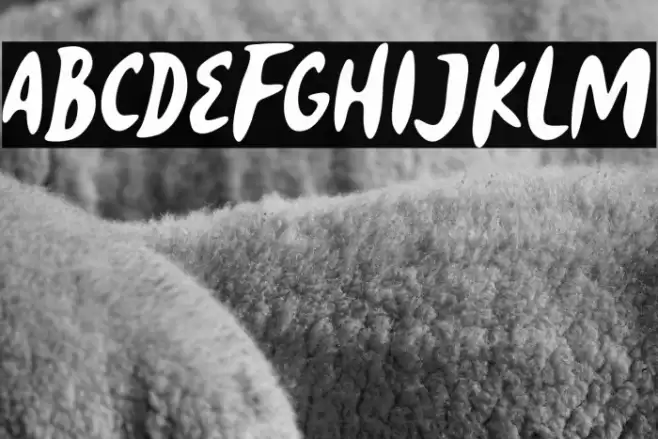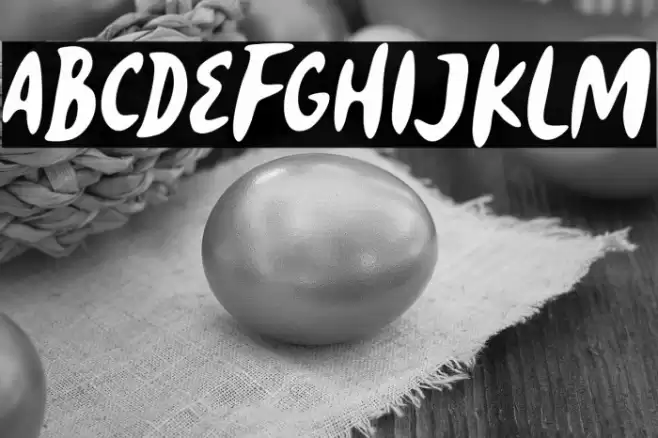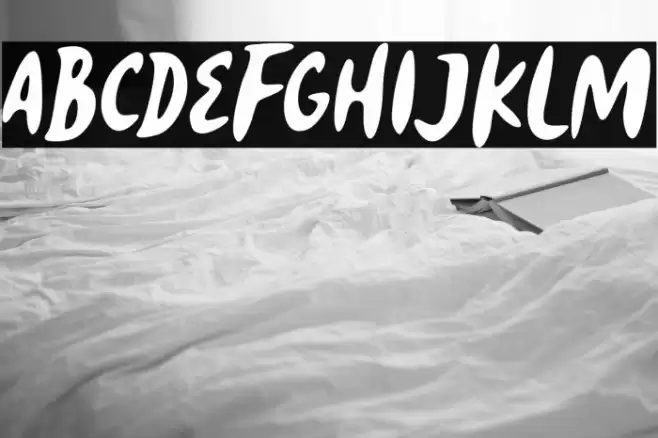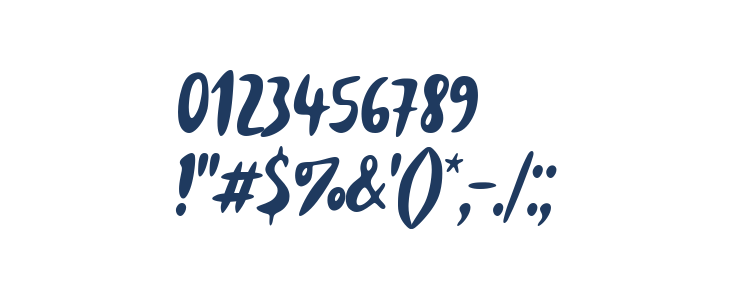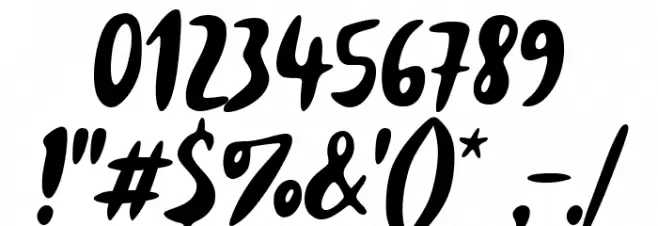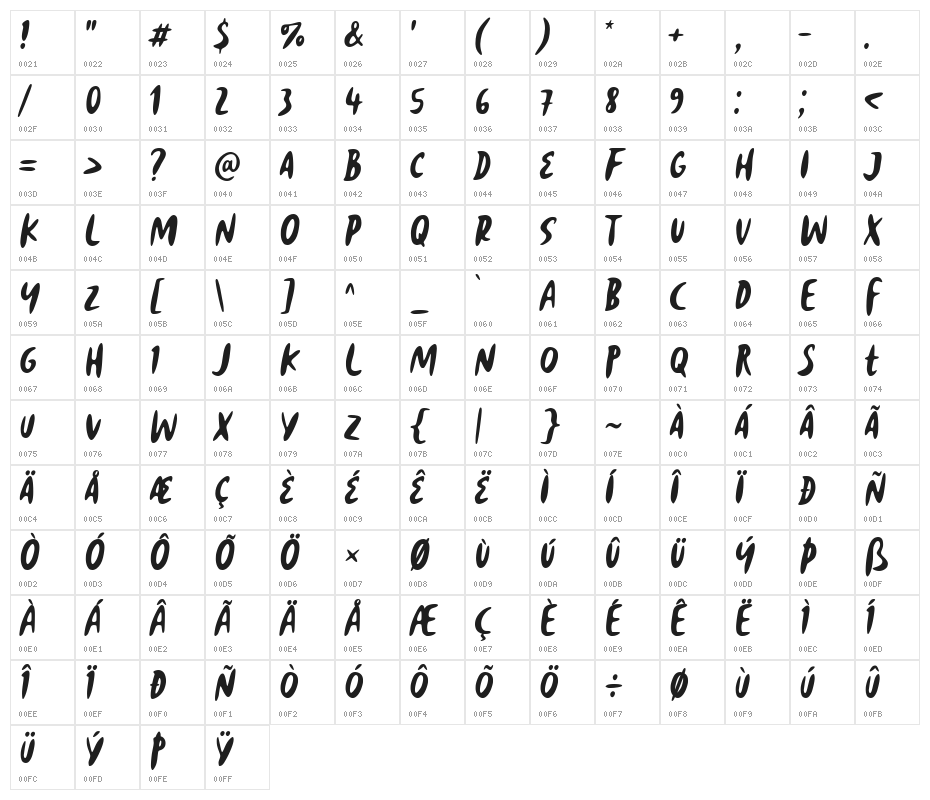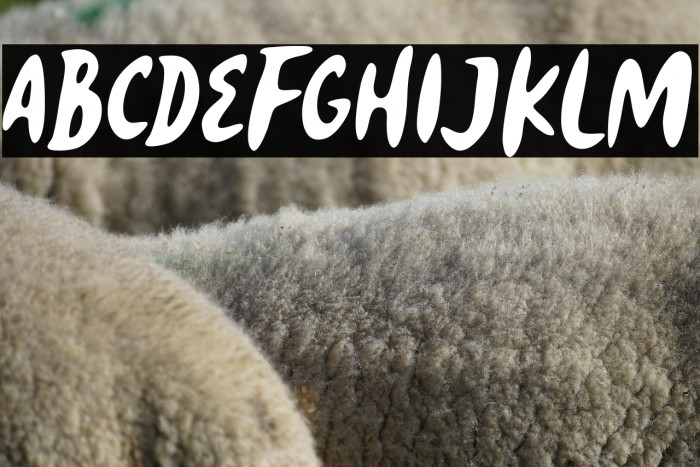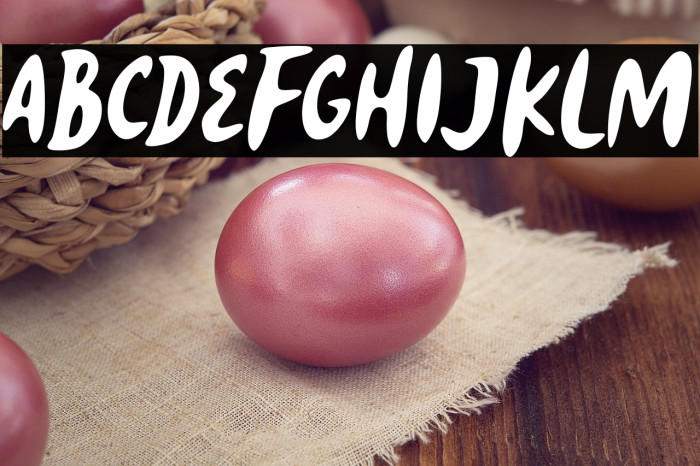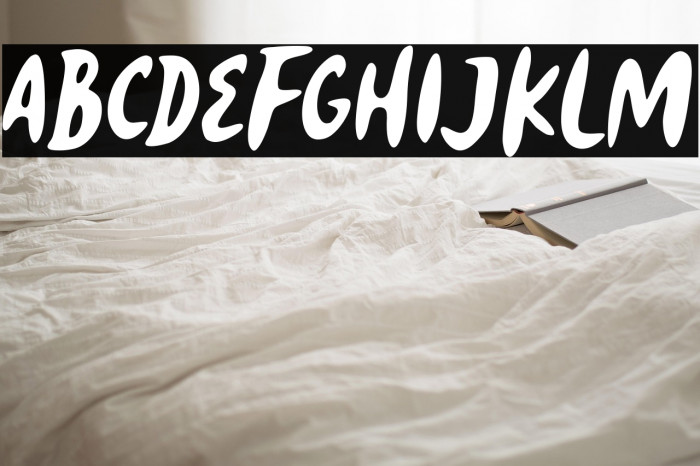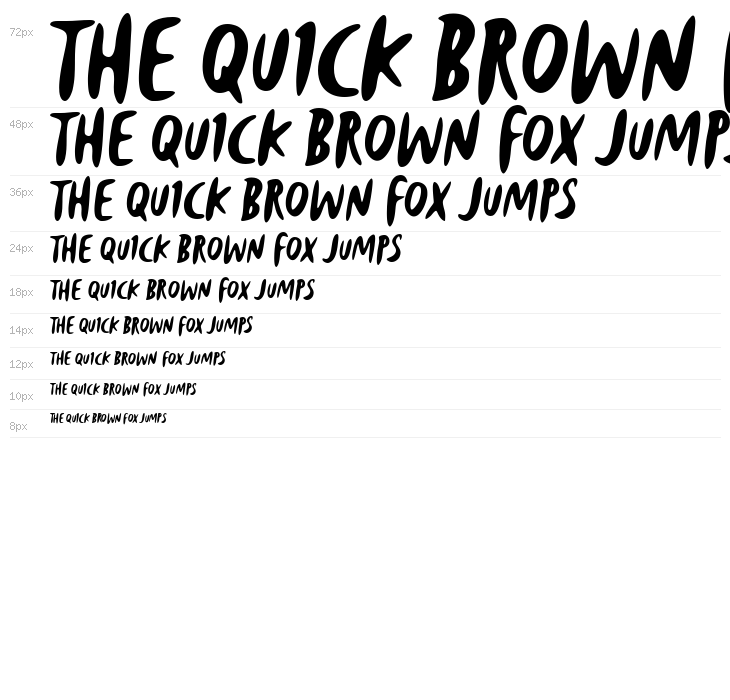
Reborn Revolt Font
Reborn Revolt Description
This font features a bold and expressive style with a handwritten appearance. The letters are slightly slanted, giving a dynamic and energetic feel. The strokes are thick and consistent, providing a strong visual impact. The characters are closely spaced, enhancing the compact and cohesive look. The font includes both uppercase and lowercase letters, numbers, and a variety of special characters, making it versatile for different design needs. Its playful and informal nature makes it suitable for creative projects that require a personal touch.
A bold, handwritten-style font with a dynamic and expressive appearance from Uncategorized fonts.
- Font: Reborn Revolt
- Proposed Projects: Ideal for branding, posters, social media graphics, and any project that benefits from a personal, energetic touch.
- Character Spacing: Tight